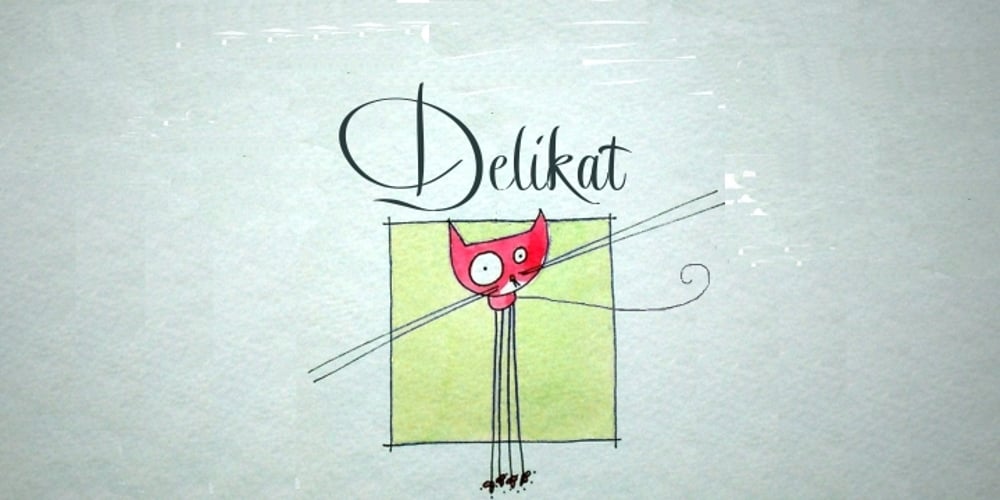
Delikat Font Family was designed by Anton Scholtz and published by Scholtz Fonts. Delikat contains 1 styles and family package options. Delikat is a graceful, finely crafted, slinky, slightly retro, somewhat quirky script font. Perfect for advertising material, clothing tags, restaurant and cafe menus, food labels, music videos, magazine pages, cosmetic branding and so many other uses we lose count! The font contains all upper and lower case characters, punctuation, numerals and mathematical operators, as well as all accented characters used in European languages. Delikat makes use of Opentype features, which enhance the fluidity and legibility of the script.